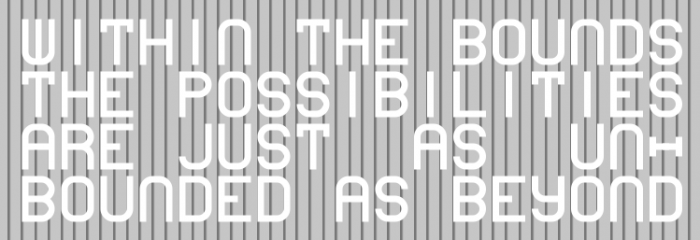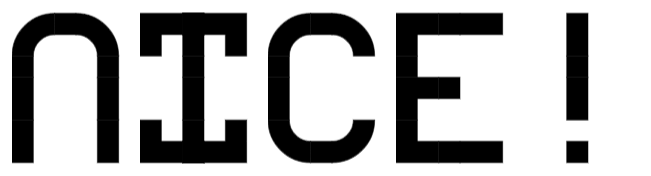
• "A cell is merely 7 feet long and barely 5 feet wide." A poor translation of the famous lines of the Dutch poet Jan Campert. The same measurements hold for glyphs in Metafontstruct. Metafontstruct is not really a font, it is a concept. It is a fontstruct within fontstruct, one could say; or it is a new fontstruct, with even more constraints than the one we're all so font of. You can use it in your word processor to create the glyph you like on the spot. When you're finished you press the spacebar to create the next glyph. The keys QWER ASD ZXCV contain possibilities for the left side of the glyph, TYUIOP GHJKL BNM for the right side, and F;',./ for the middle. The capitals and numerals are just some examples of glyphs you can create. There's freedom within these boundaries, as we're all experiencing in these covidiotic times. If I may give another poor translation of a Dutch poem, by Jules Deelder, a famous poet from my home town who died last year: "Within the bounds the possibilities are just as unbounded as beyond." Not enough freedom for you, looking for another brick? Feel free to clone!
Love the concept and the introduction to Dutch poetry!
Congrats on the concept & the TP!
@elmoyenique: I was inspired by your nice puppets!
Bravo! It's like the 2nd dream level of Inception. I was wondering if Elmoyenique's zpells were an inspiration. Thanks for sharing.
I attempted to create Russian letters. The letter Ё turned out completely disastrous, and some of the letters are hard to interpret, but overall, it seems to do decently.
Great concept!